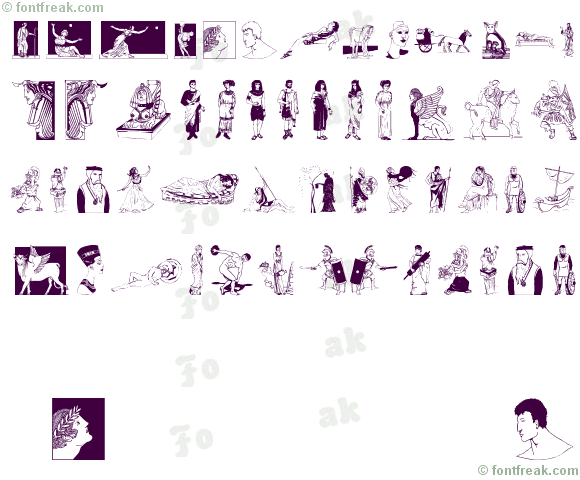
ClassicBats
ClassicBats, designed by Manfred Klein, is a unique decorative font that falls into the dingbat category. This font features a charming array of illustrations that evoke a sense of nostalgia and whimsy, making it ideal for various creative projects. The design showcases intricate details and a playful aesthetic, with consistent stroke weights and a balanced spacing that enhances readability while maintaining its artistic flair. The characters are not typical letters but rather delightful images that can add a distinctive touch to your designs.
Best suited for projects like wedding invitations, children's books, greeting cards, and themed event posters, ClassicBats can elevate the visual appeal of any creation. Its playful nature makes it particularly effective for projects aimed at young audiences or those seeking a light-hearted tone. Small business owners looking to create unique branding materials or content creators intending to enhance their social media posts will find this font especially useful.
Graphic designers will appreciate the versatility of ClassicBats, as its whimsical designs can seamlessly integrate into various themes and styles. Whether you're crafting a vintage-inspired layout or aiming for a more contemporary feel with a twist, this font adapts beautifully to different contexts. The free availability of ClassicBats font free download makes it accessible for all creators looking to incorporate distinctive graphics into their work.
What sets ClassicBats apart is its ability to blend artistry with functionality. Each character serves not just as a symbol but as a storytelling element, inviting viewers to engage with the content more deeply. This font can transform ordinary designs into extraordinary visual narratives, making it a must-have for anyone looking to leave a memorable impression.